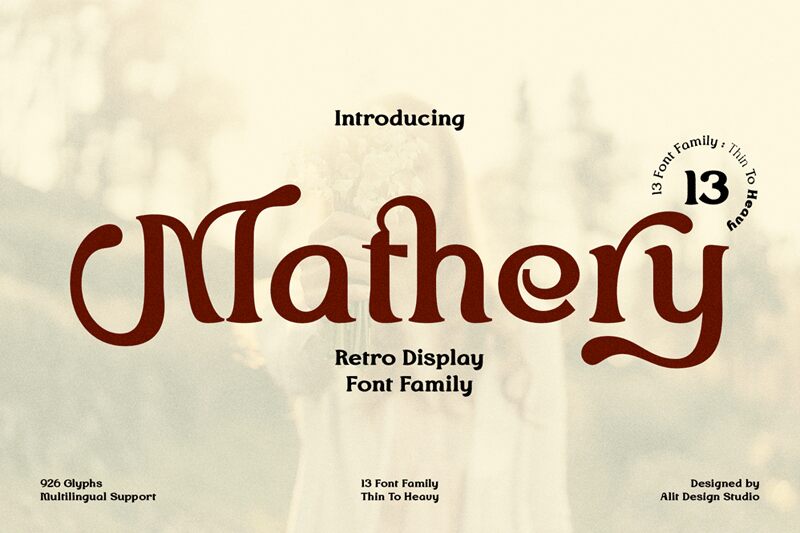
Mathery Thin, a mesmerizing display font from the brilliant mind of Alit Design, effortlessly transports your projects back to the retro era. With its semi-light weight and thin strokes, this typeface adds an elegant touch to any design. Perfect for vintage-inspired branding, book covers that evoke nostalgia, or even eye-catching posters that demand attention. Mathery Thin is a versatile font suitable for diverse projects like fashion editorials yearning for a classic twist or sleek websites seeking a hint of old-school charm. Let Mathery Thin elevate your designs and captivate your audience with its timeless appeal.
Mathery Thin